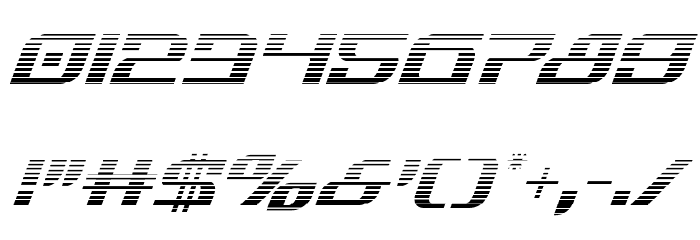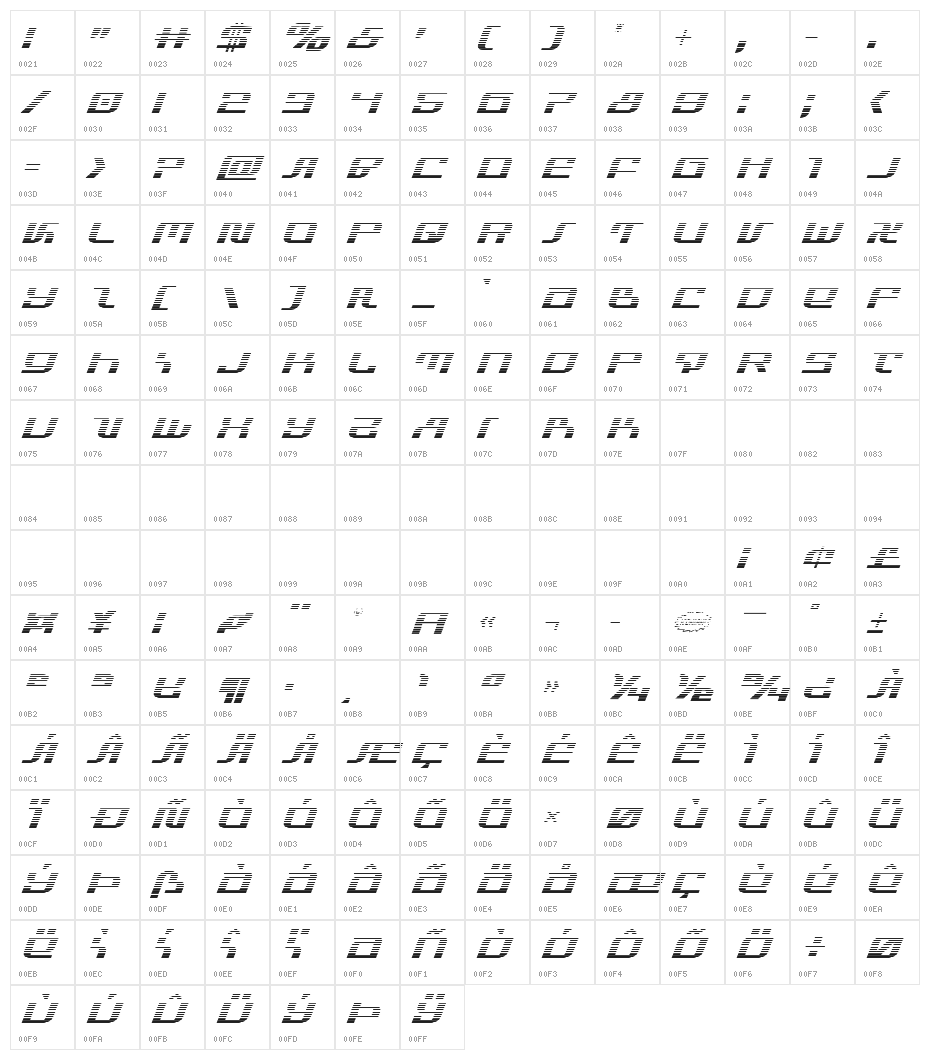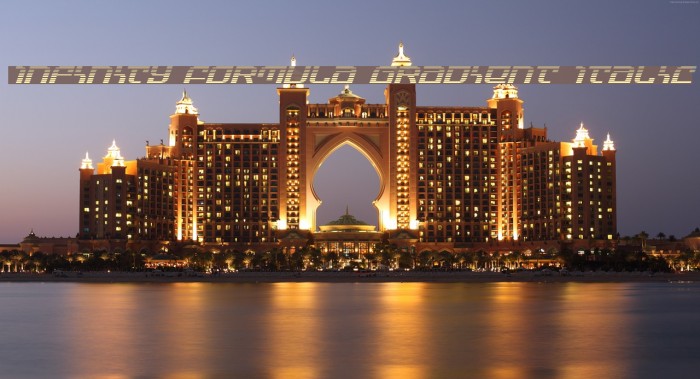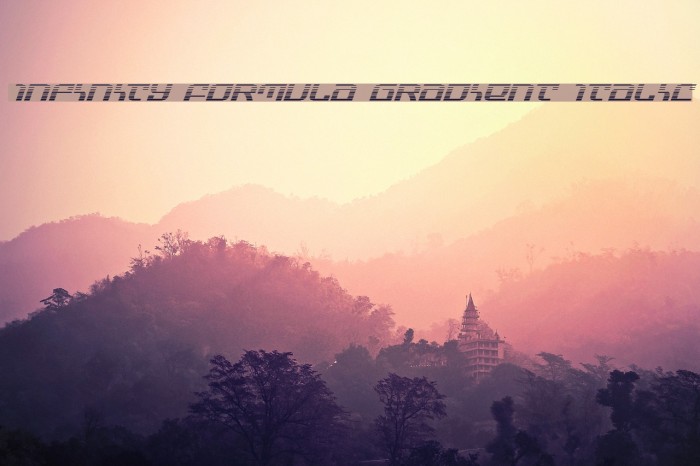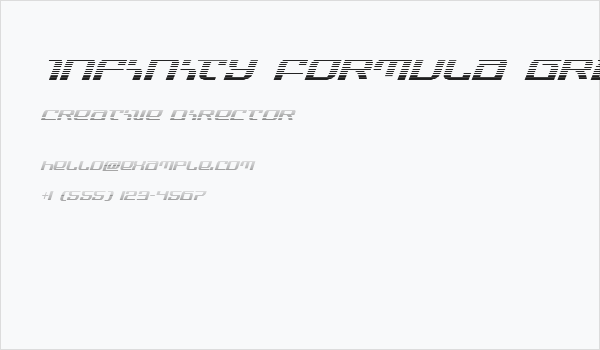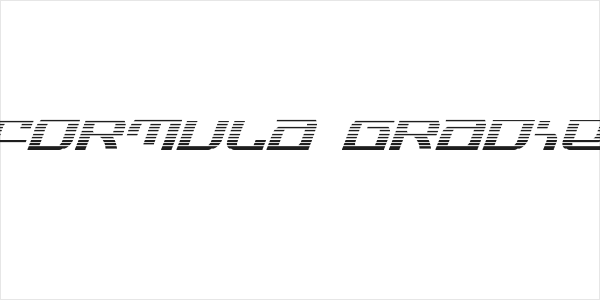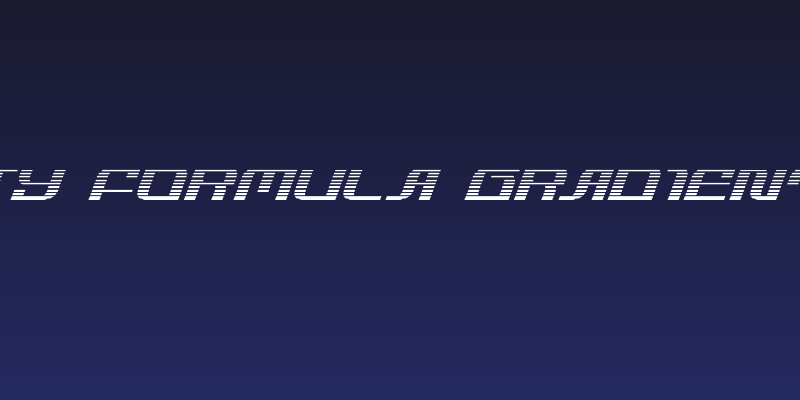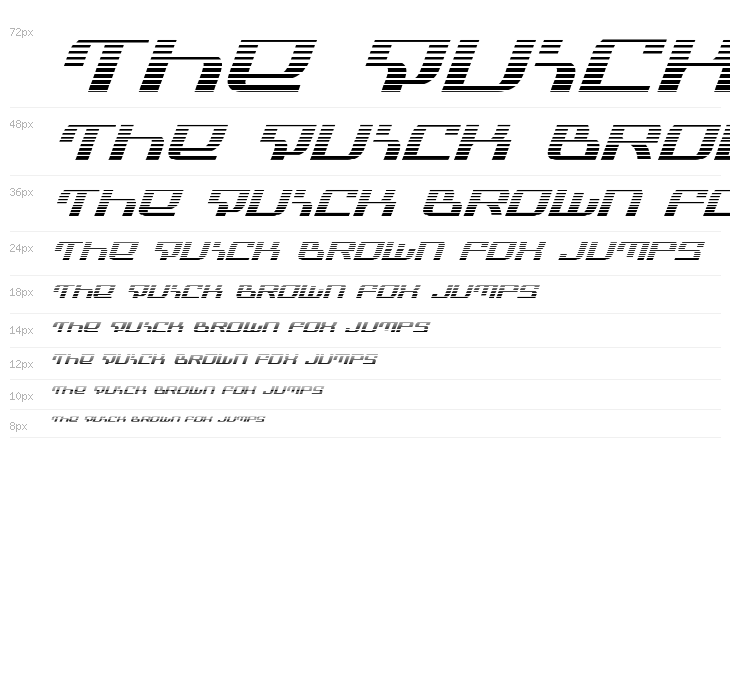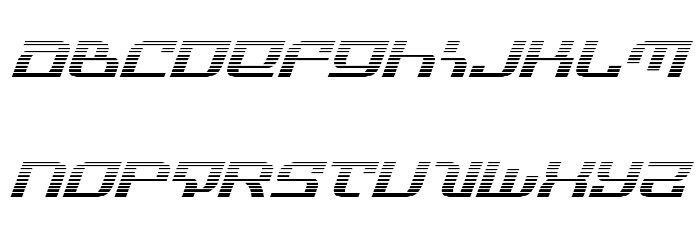
Infinity Formula Gradient Italic Font
Infinity Formula Gradient Italic Description
This font features a futuristic and dynamic design, characterized by its italicized and gradient-striped appearance. The letters are constructed with horizontal lines that create a sense of movement and speed, making it ideal for modern and tech-oriented projects. The uppercase and lowercase letters maintain a consistent style, with a slight slant that enhances the italic effect. Numbers and special characters are designed to match the overall aesthetic, ensuring uniformity across all elements. The font's unique style makes it stand out, suitable for attention-grabbing headlines or branding materials.